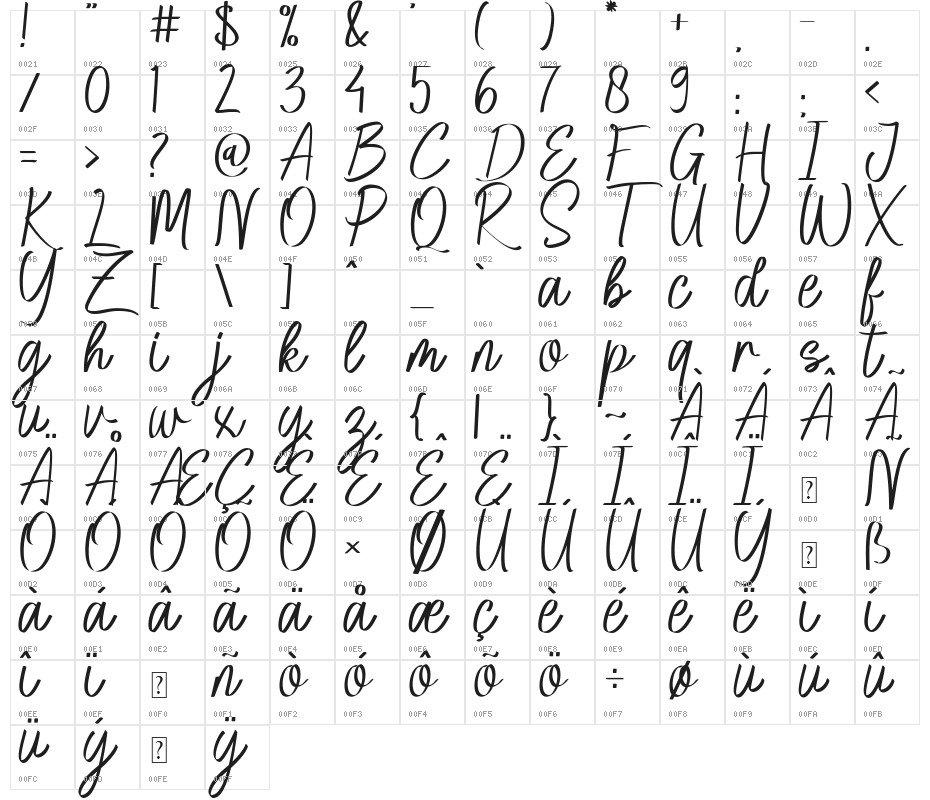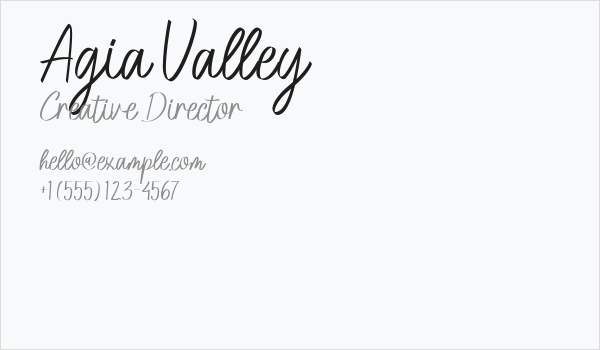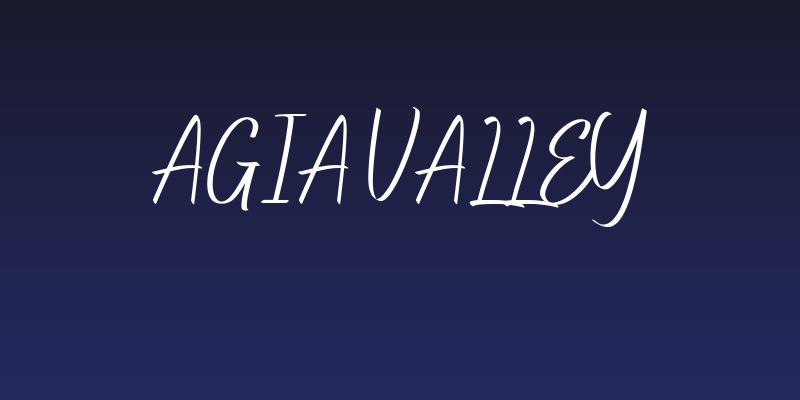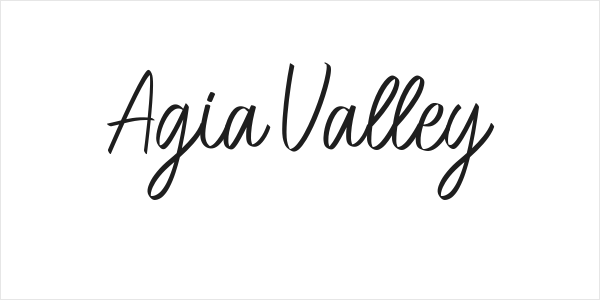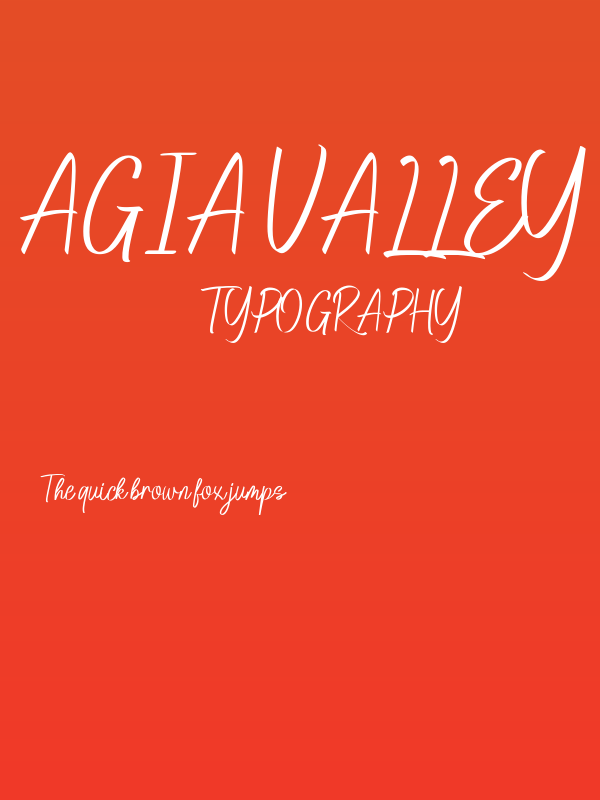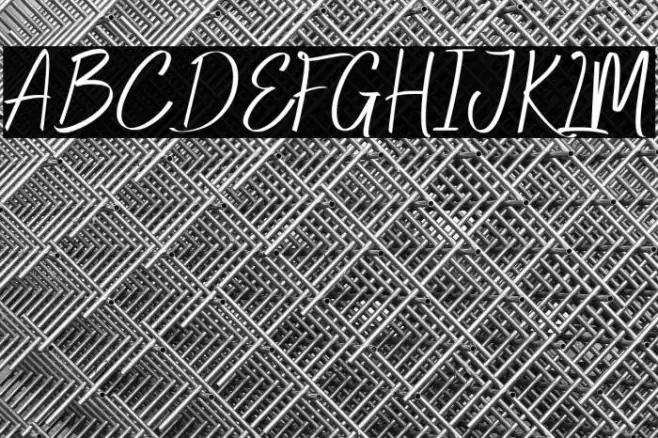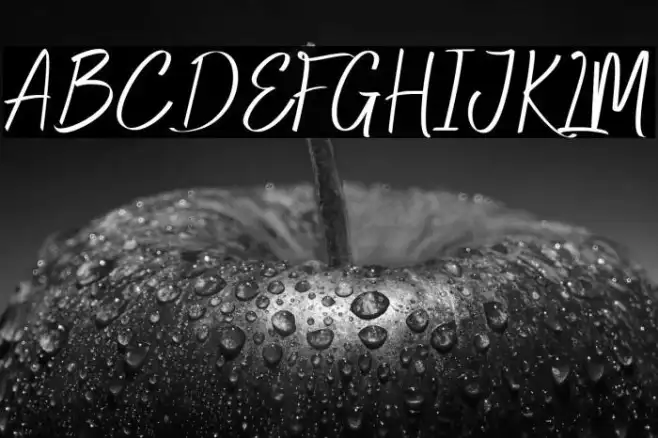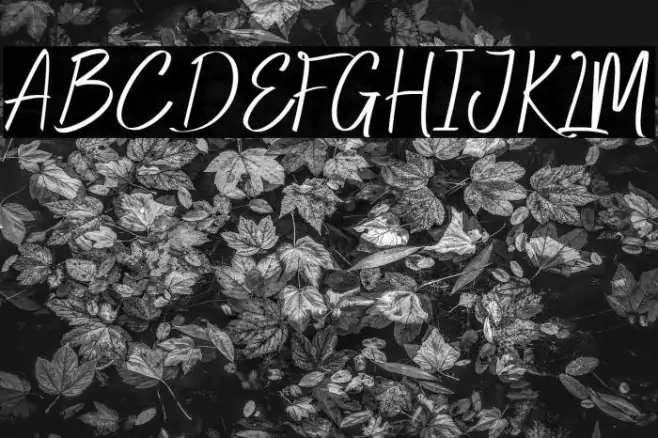
Agia Valley Font
Agia Valley Description
This font features a lively and flowing script style, characterized by its elegant and smooth curves. The uppercase letters are tall and slightly narrow, with a consistent slant that adds a sense of motion and grace. The lowercase letters are more rounded and connected, enhancing the handwritten feel. Numbers and special characters maintain the same fluidity, making the font versatile for various uses. The overall appearance is both sophisticated and approachable, ideal for projects that require a personal touch.
AGIA-VALLEY UPPERCASE
AGIA-VALLEY LOWERCASE
AGIA-VALLEY OTHER CHARS
| Proposed Projects | Ideal for wedding invitations, greeting cards, personal branding, and creative projects that require a personal, elegant touch. |